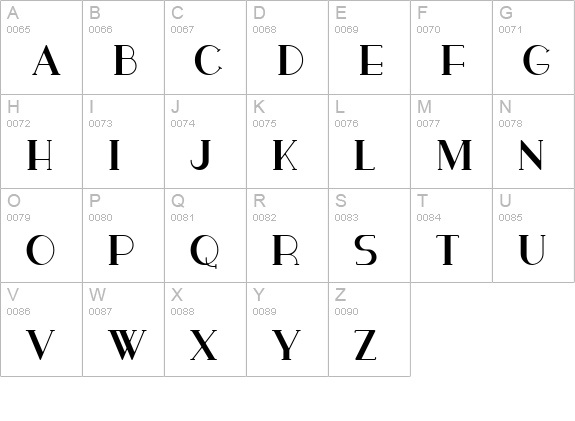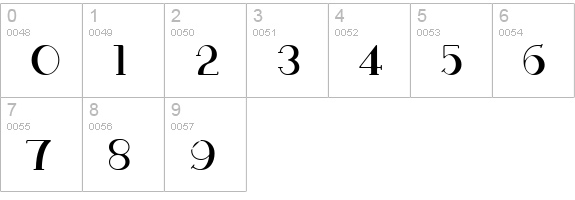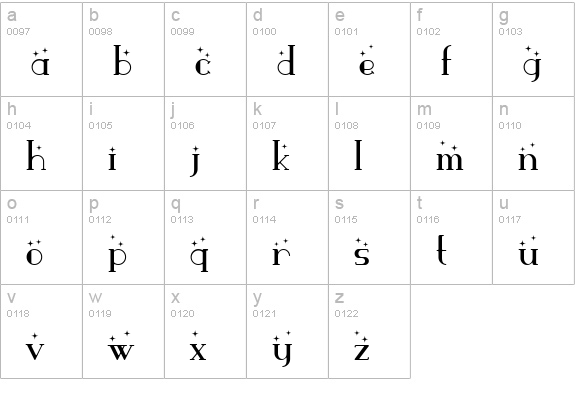
ParismatchBright Font Details
ParismatchBright font is a stunning display font that exudes elegance and sophistication. Its unique design features intricate curves and sharp edges, creating a visually captivating look. This font is perfect for adding a touch of class to any project, whether it's for logos, branding, invitations, or headlines. One of the standout features of ParismatchBright font is that it is completely free. Yes, you read that right! This exceptional font is freely available to download at FontsMarket.com, making it accessible to designers, creatives, and enthusiasts alike. With its top-notch quality and no cost attached, ParismatchBright font is a true gem in the font world. The versatility of ParismatchBright font is impressive. It can effortlessly adapt to various styles and themes, whether it's a modern and minimalist design or a vintage-inspired project. Its clean lines and well-defined characters make it highly legible, ensuring that your message is conveyed with clarity and impact. ParismatchBright font is a reliable choice for any design project, as it offers a wide range of weights and styles to choose from. Whether you prefer a bold and eye-catching statement or a subtle and refined touch, this font has got you covered. Its extensive character set also includes multilingual support, allowing you to reach a global audience with ease. In addition to its exceptional design and versatility, ParismatchBright font is also easy to use. Its user-friendly nature ensures a smooth and hassle-free experience, whether you're a seasoned designer or just starting out. With its freely available download at FontsMarket.com, you can quickly and conveniently add this font to your collection and start creating stunning designs right away. Make a bold statement with ParismatchBright font. With its incredible design, extensive features, and the fact that it is freely available to download, this font is a must-have for any designer or creative individual. Upgrade your projects with ParismatchBright font and let its elegance and sophistication shine through.